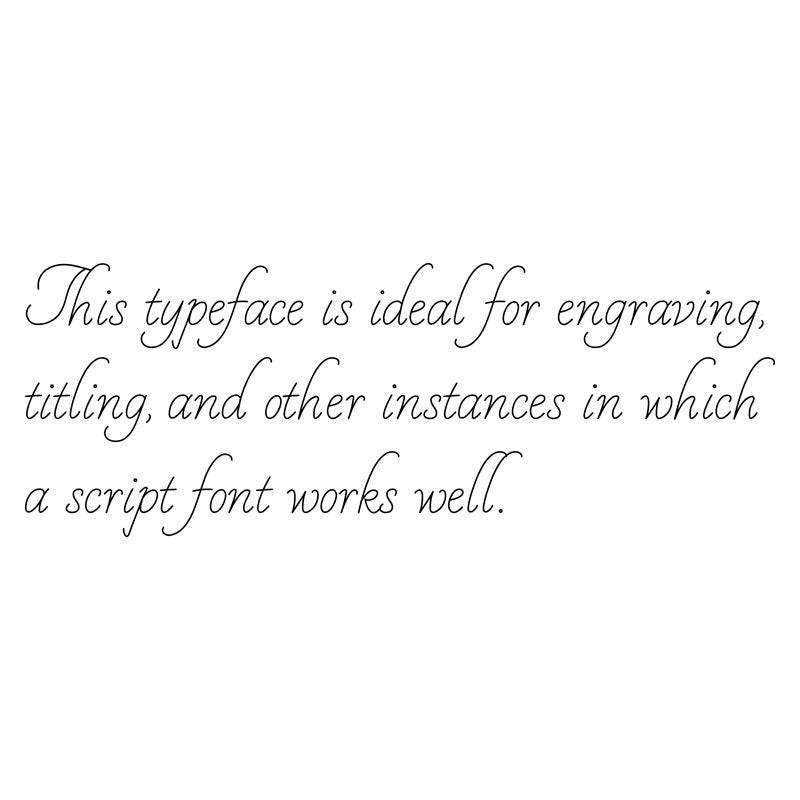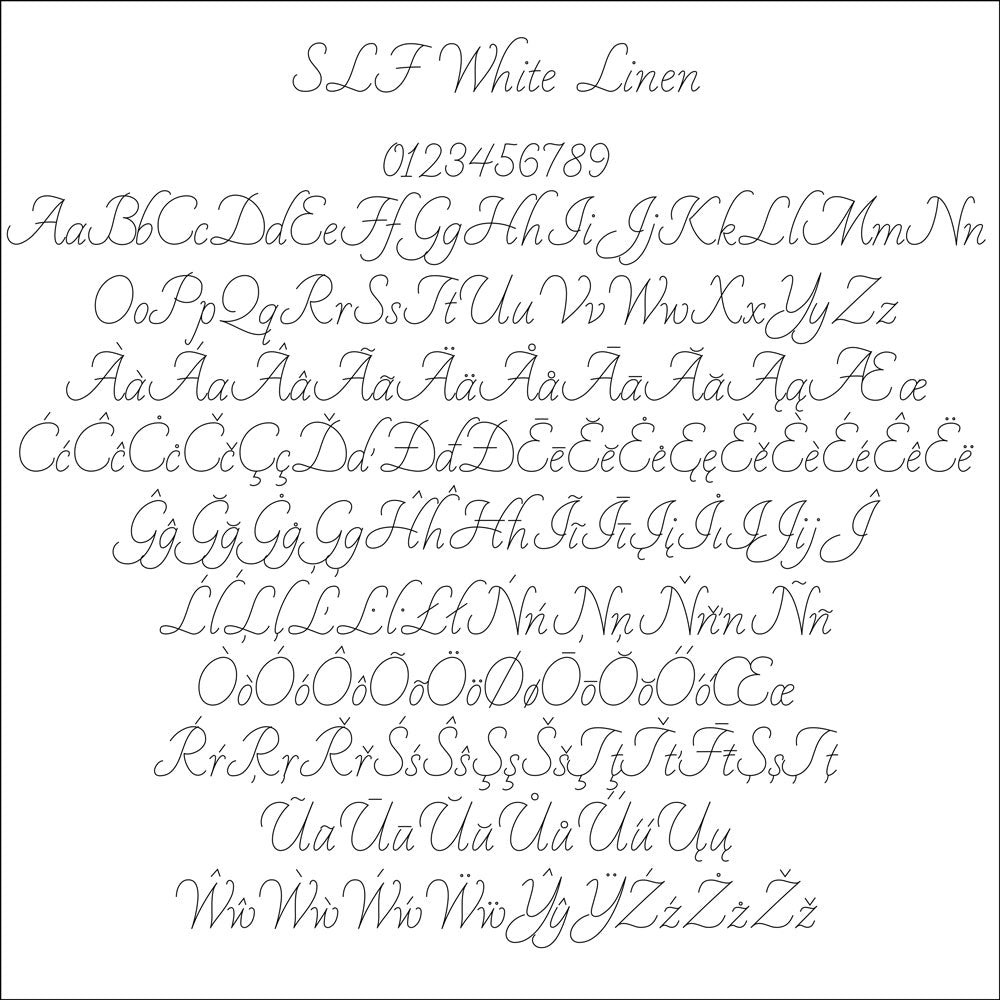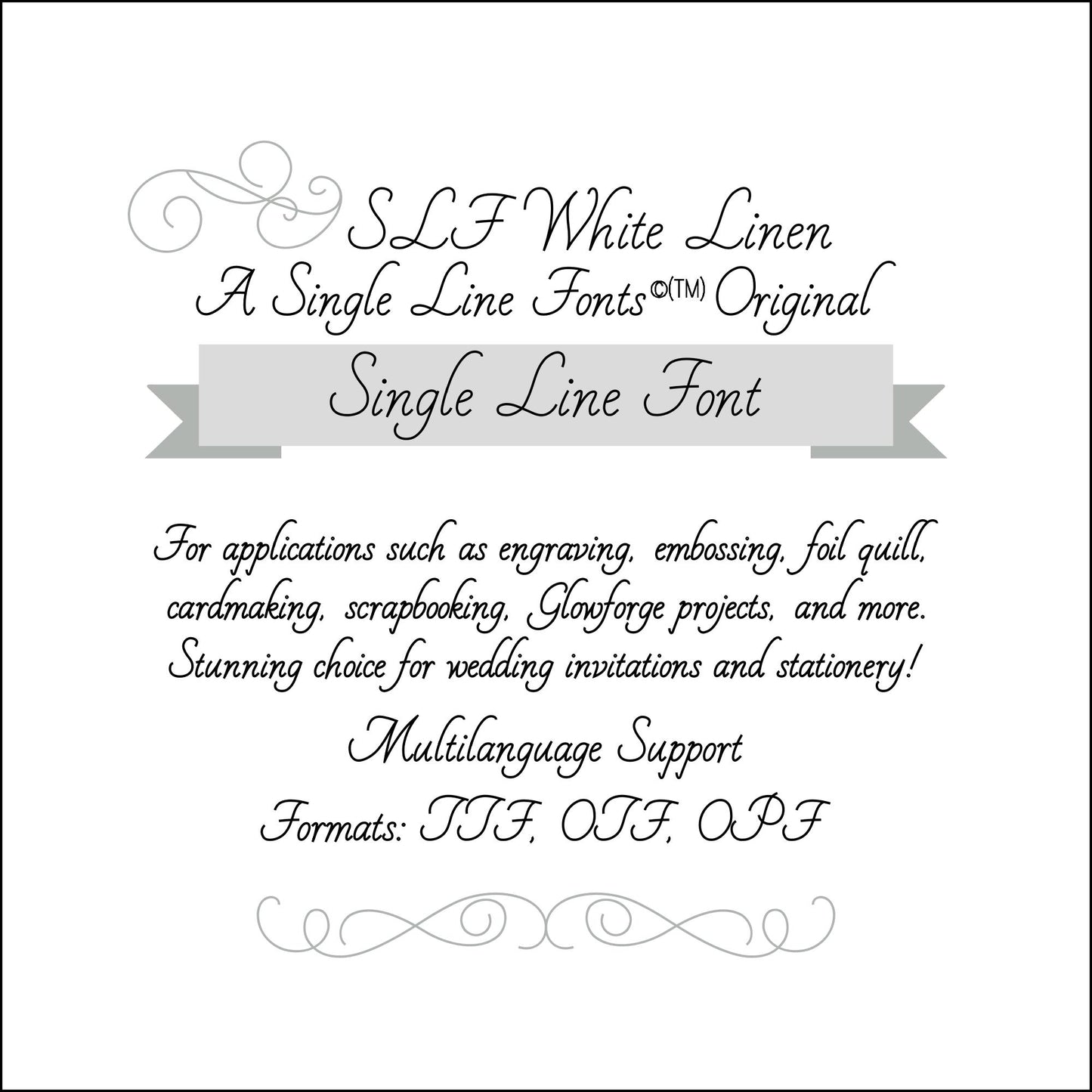
SLF White Linen – Flowing Single Line Script for Wedding Stationery & Foil Quill
SLF White Linen is a flowing, formal single line script with elongated lettering for your most elegant creations. It’s perfect for wedding stationery, formal invitations, card making, and Foil Quill projects.
• Wedding invitations, place cards, and formal stationery
• Foil Quill lettering and pen projects
• Pen plotters and elegant craft designs